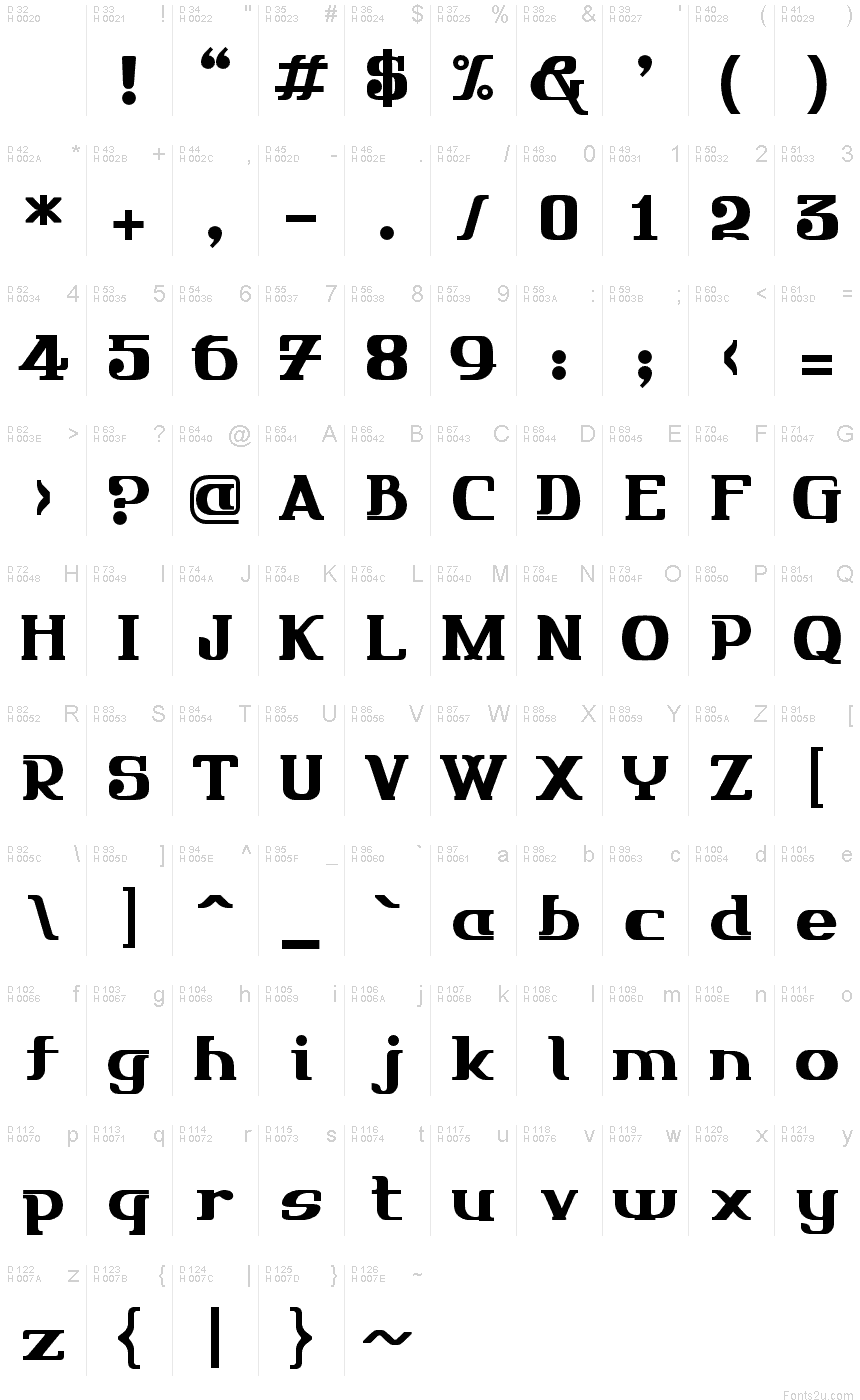
FRIENDO SemiBold by Mostafa El Abasiry is a free high-contrast serif font with an oversized, theatrical silhouette. Its broad capitals, swollen curves, and razor-thin joins create a dense texture, with sharp slab-like serifs cutting deeply into the rounded forms.
It can turn a masthead into an illustrated emblem. The dramatic weight suits fashion campaigns, music posters, event graphics, and premium packaging for products with an eccentric, slightly extravagant edge. It is especially effective in magazine publishing, where the crowded letter shapes can echo layered collage, tightly cropped photography, and oversized editorial imagery across covers and feature openers.